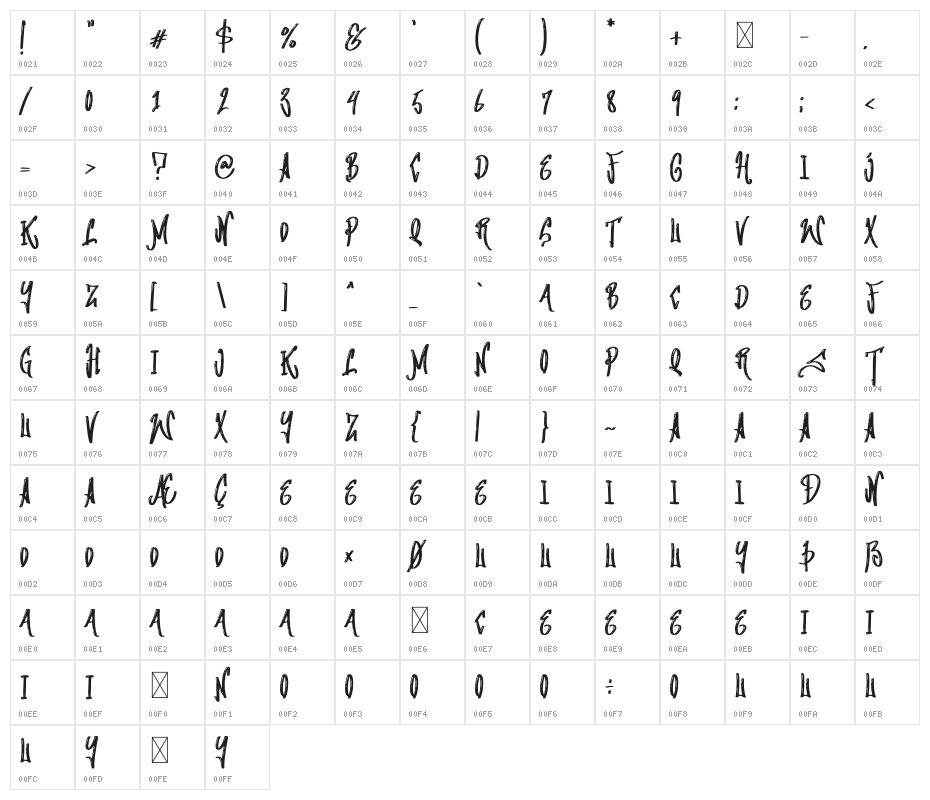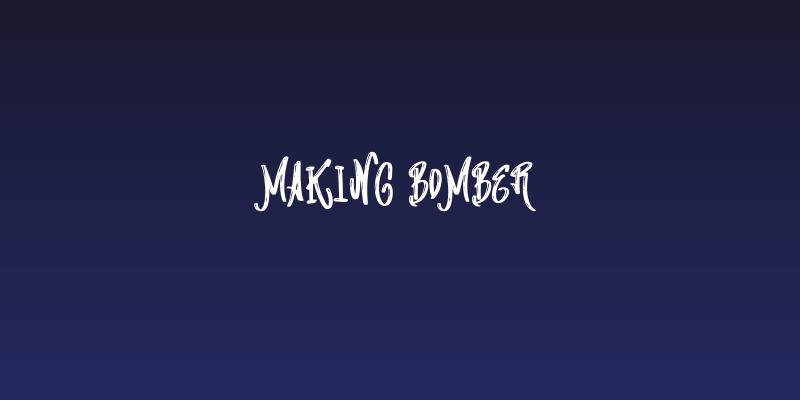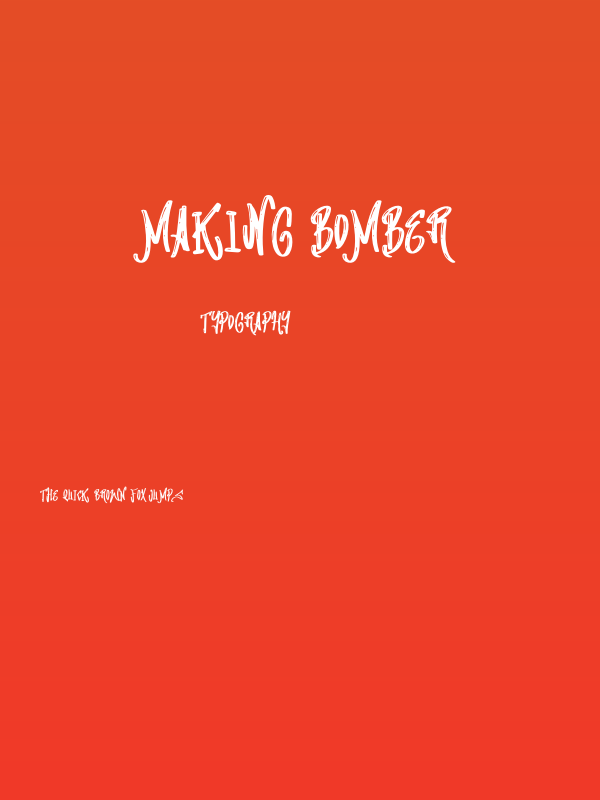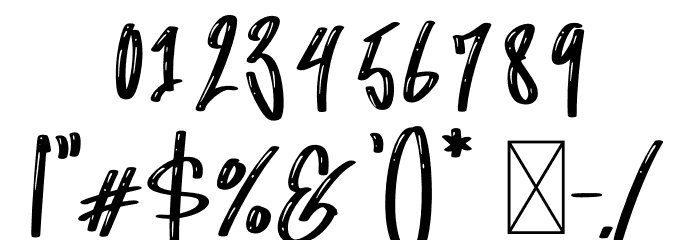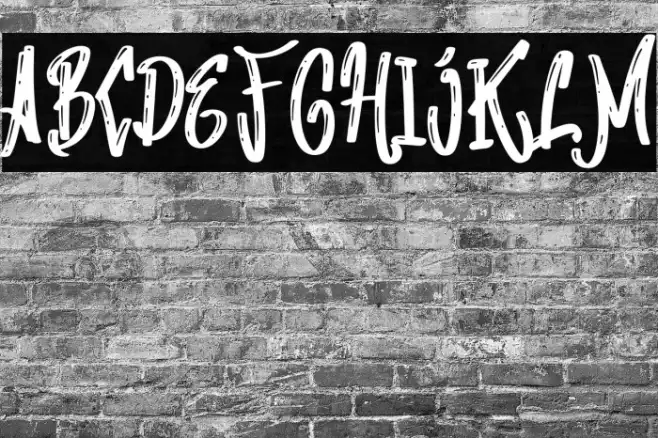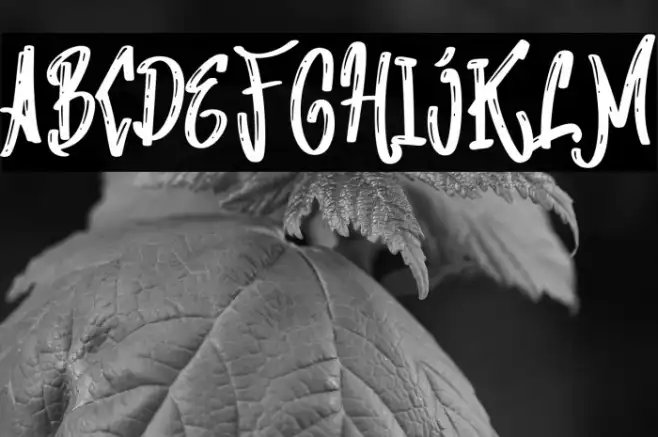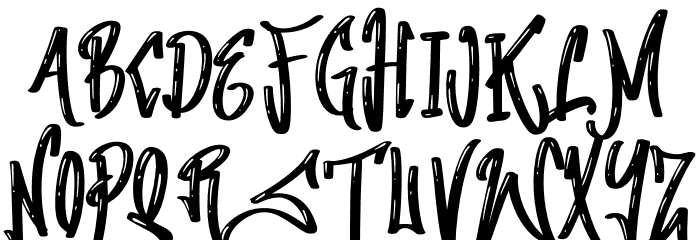
Making Bomber Font
Making Bomber Description
This font features a bold and dynamic style with a graffiti-inspired aesthetic. The characters are highly stylized, with exaggerated curves and sharp angles that give them a sense of movement and energy. The uppercase and lowercase letters maintain a consistent design, with a playful and rebellious flair. The numbers and special characters follow the same energetic style, making them suitable for eye-catching designs. The overall look is both modern and edgy, perfect for projects that require a bold statement.
MAKING-BOMBER UPPERCASE
MAKING-BOMBER LOWERCASE
MAKING-BOMBER OTHER CHARS
| Overall Style | Modern, Edgy |
| Proposed Projects | Ideal for street art designs, urban-themed posters, music album covers, and edgy branding projects. |